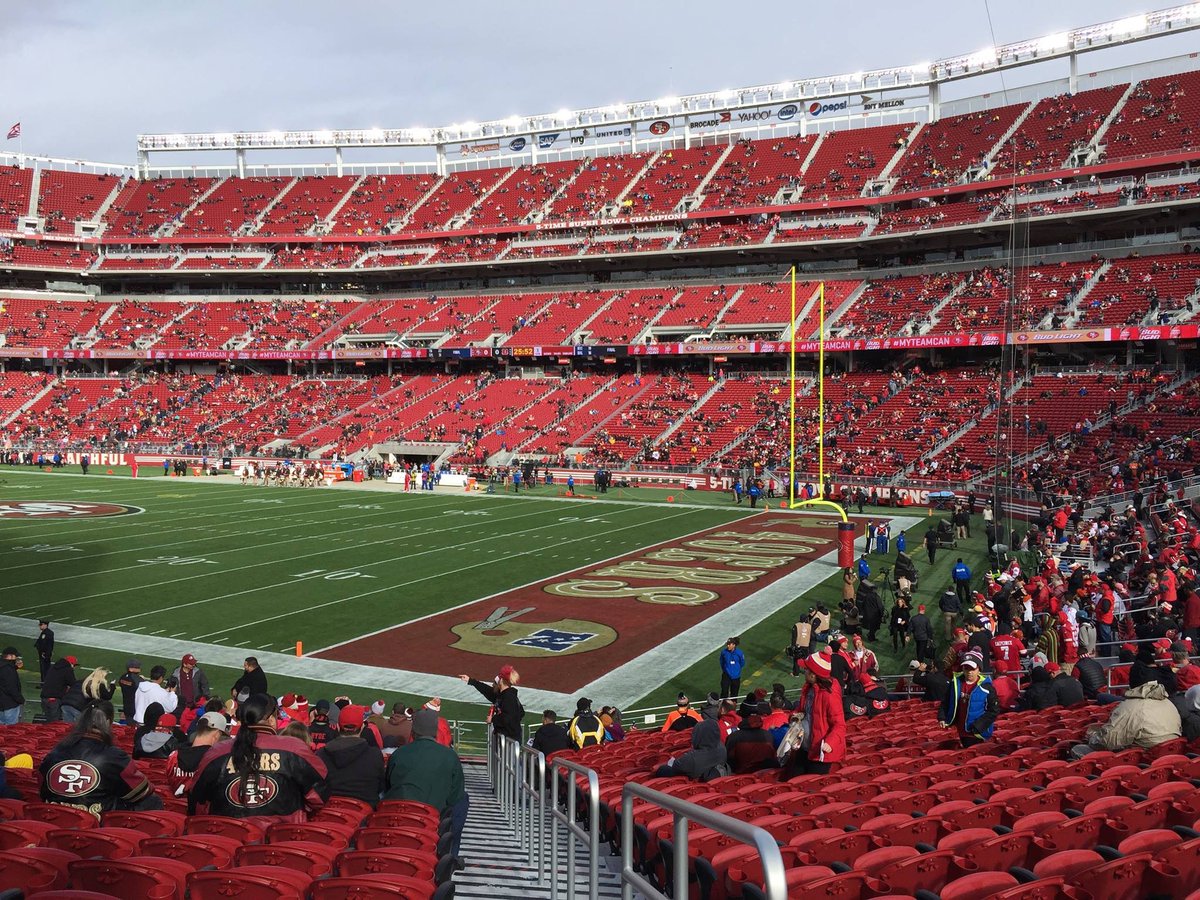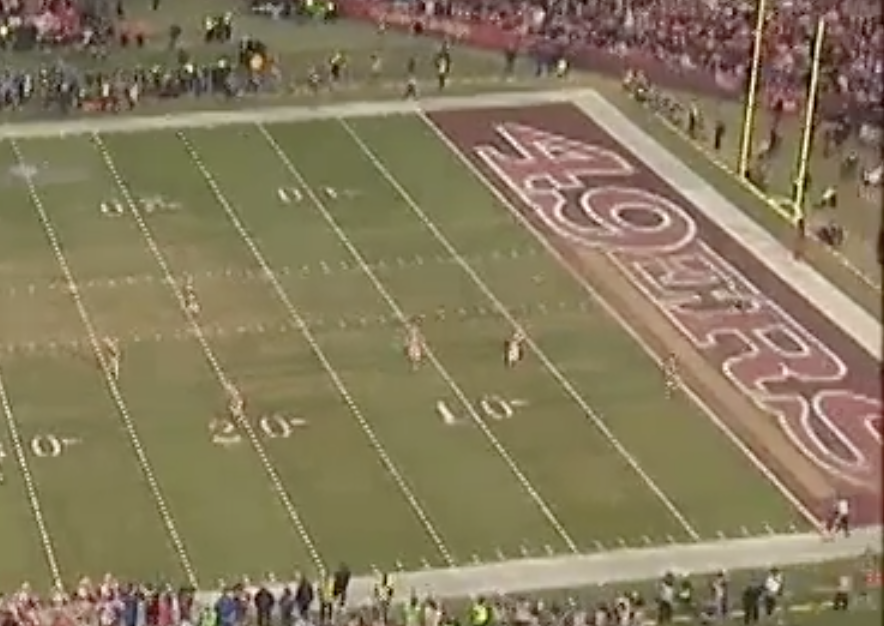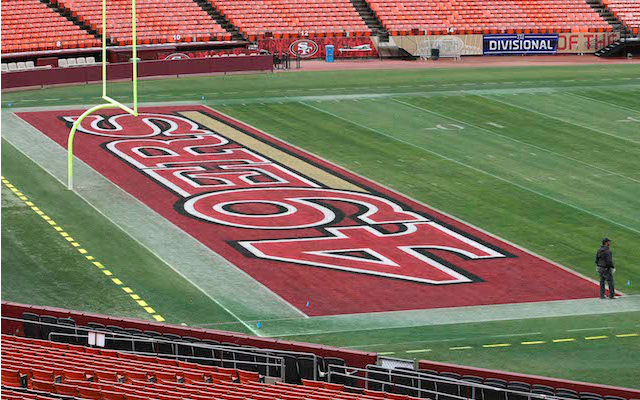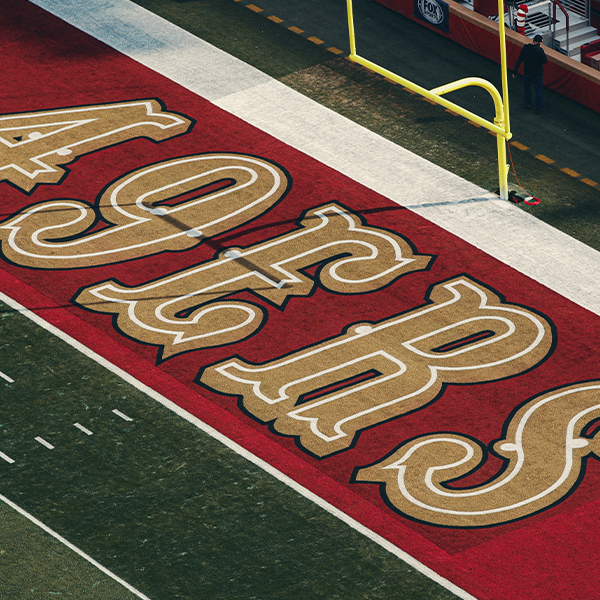
49ers Saloon Font Logo
Those levis stadium end zones featuring the teams name in what the san francisco 49ers have dubbed the saloon font will be traveling to miami too.
49ers saloon font logo. A playoff tradition for the 49ers 19081234. And it has available only in a single regular style along with 63 number of characters. The san francisco 49ers announced in june that the end zones at levis stadium would retain the team name written in what 49ers president al guido has termed the saloon font for the entirety of.
Saloon font and red end zones. The chicago bears are a san francisco 49ers american football team logo. Saloon font and red end zone paint a playoff tradition of the dynastic 49ers is back.